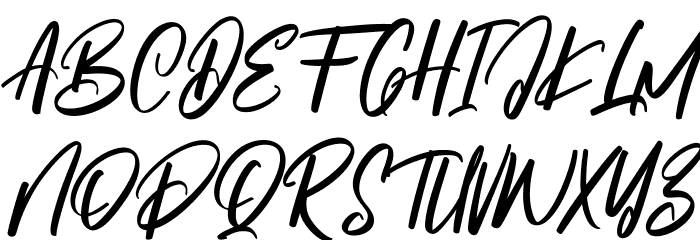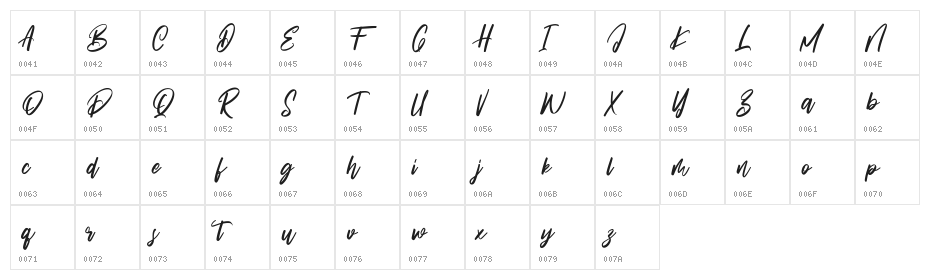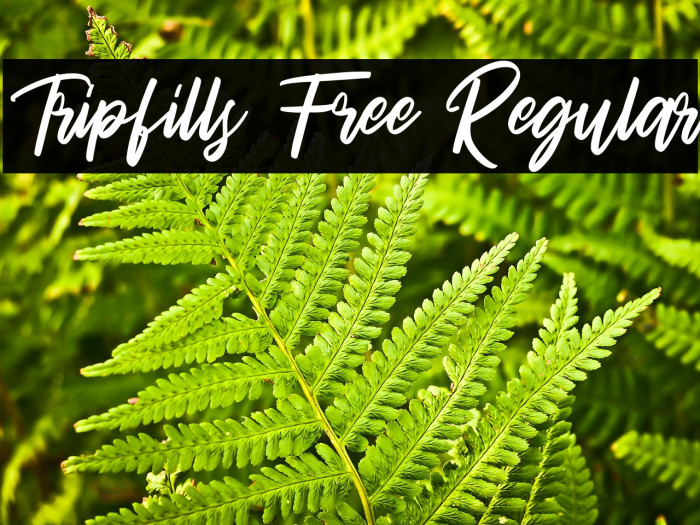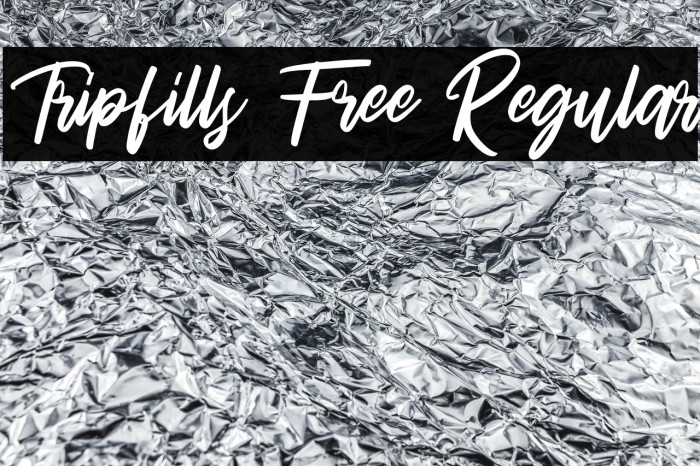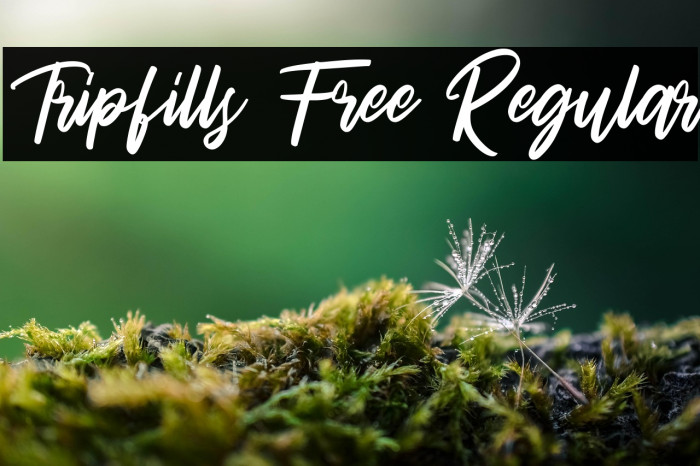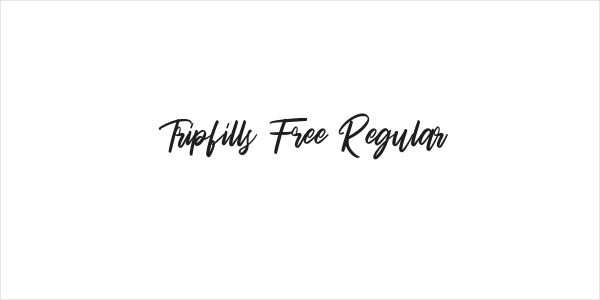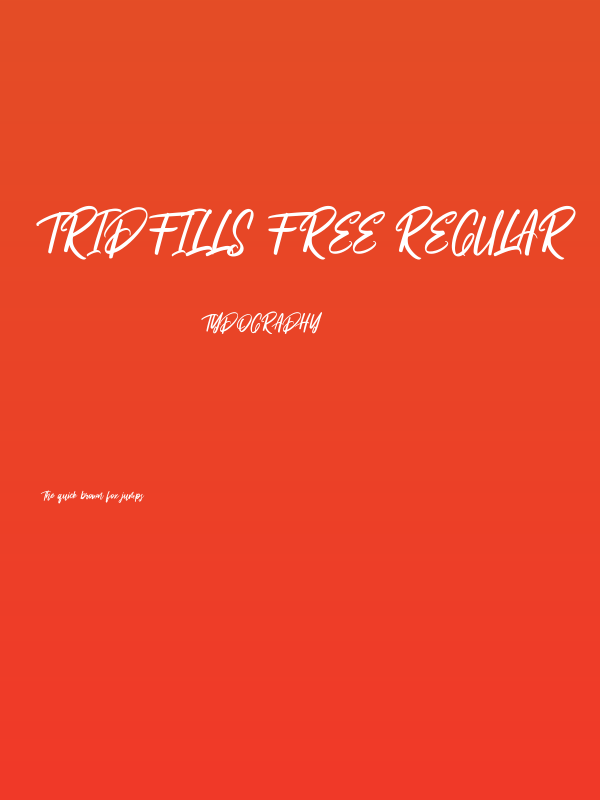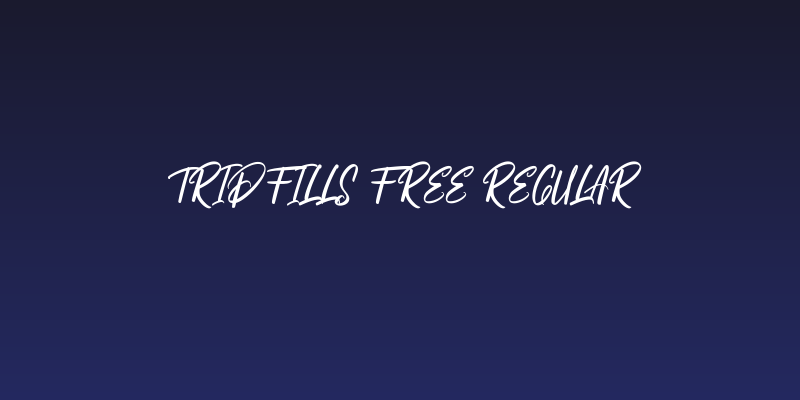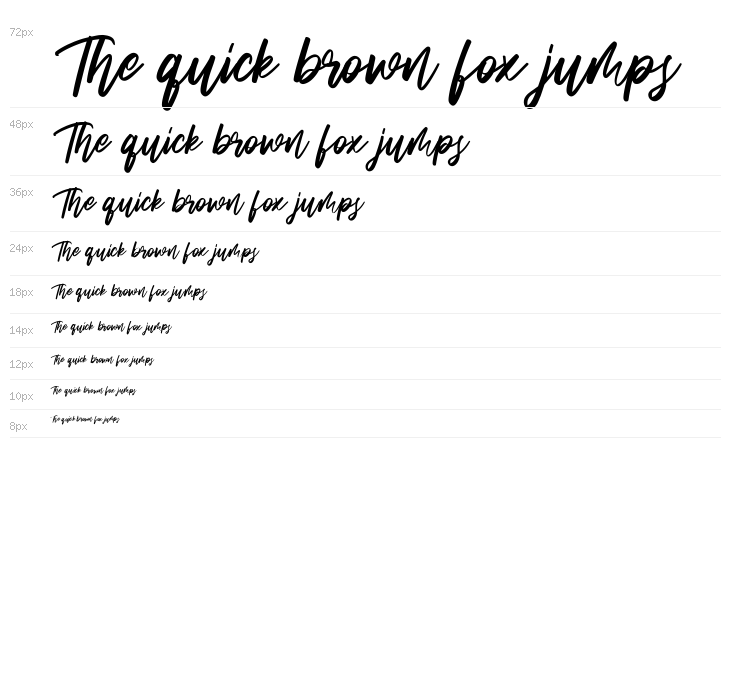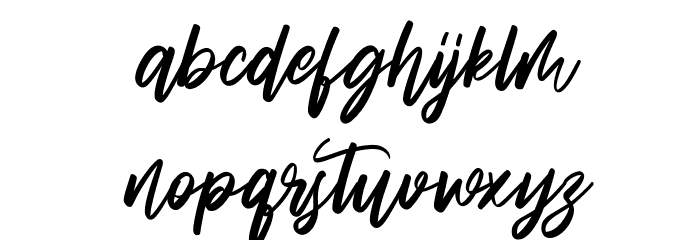
Tripfills Free Regular Font
Tripfills Free Regular Description
This font features a dynamic and energetic script style, characterized by its fluid and connected letterforms. The strokes are bold and expressive, giving a sense of movement and personality. The uppercase letters are particularly striking, with a mix of sharp angles and smooth curves that create a lively appearance. The lowercase letters maintain a consistent flow, enhancing readability while retaining the font's artistic flair. The numbers and special characters are crafted with the same attention to detail, ensuring a cohesive look across all text elements. This font is perfect for projects that require a touch of elegance and creativity.